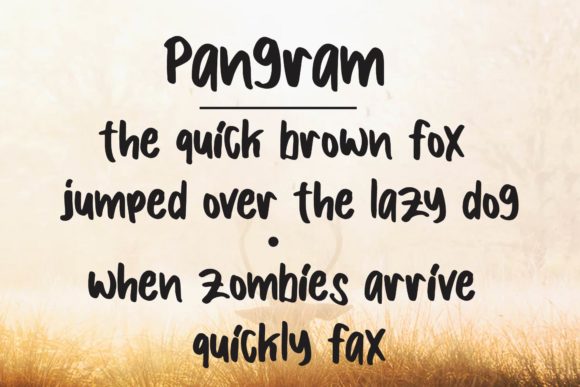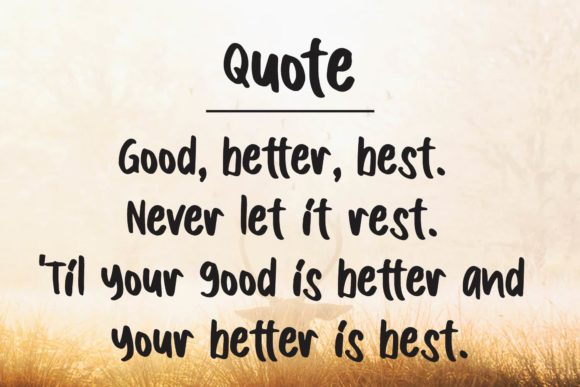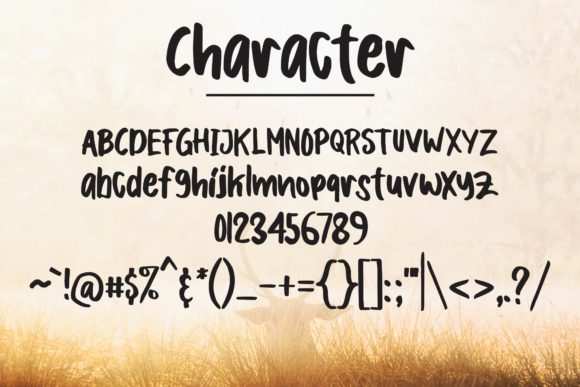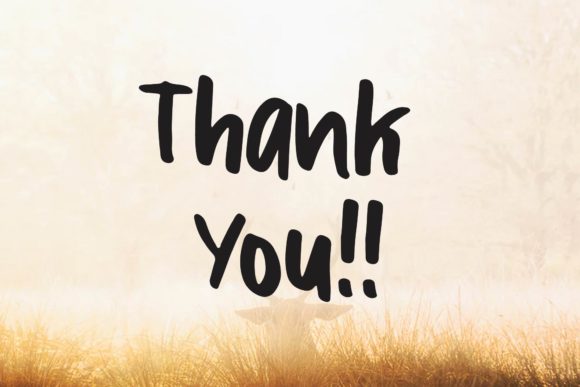
HomeScript FontsBoldey Font Script Fonts Boldey Font FacebookXPinterestWhatsApp Boldey Font Poster 2 Boldey Font Poster 3 Boldey Font Poster 4 Boldey Font Poster 5 About Boldey Font Boldey is a fresh and bold script with a modern feel. Use it to turn any design idea into a true standout! DOWNLOAD ON CREATIVE FABRICAThis font is sold and delivered by Creative Fabrica. Font Canyon may earn a commission if you buy through this link. People also explored Love Script Santa Font Fat Stars and Stripes Font Lepota Font Caramellow Font Nangkod Font Amagh Font Lineart Font Morche Font 417 0 TagsBoldey Font Previous articleSphinxes FontNext articleMellanie! Font LEAVE A REPLY Cancel reply Comment: Please enter your comment! Name:* Please enter your name here Email:* You have entered an incorrect email address! Please enter your email address here Website: Save my name, email, and website in this browser for the next time I comment. Personal Use Free Awkward Personal Use Free Read more about this font Borg Personal Use Free Read more about this font Earwig Factory Personal Use Free Read more about this font Bridgetown Font Personal Use Free Read more about this font BLOG Using Fonts in Digital Marketing: Tips to Strengthen Your Brand Identity In the realm of digital marketing, every visual element plays a crucial role in shaping a brand's identity, and fonts are no exception. The... To increase your work productivity, choose the most readable fonts. Best Fonts for T-Shirt Design – Top 2025 Picks Top 10 Handwritten Fonts That Elevate Your Designs